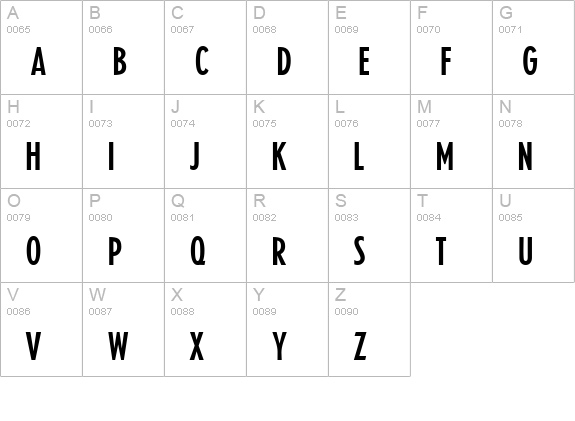
E821-Sans-Regular Font Details
E821-Sans-Regular is the standard, neutral variant in the E821 typeface family \xE2\x80\x94 well suited to general body text, paragraphs, and standard typographic work.
E821-Sans-Regular font is a versatile and modern typeface that will elevate any design project. With its clean lines and balanced proportions, this font exudes professionalism and readability. Whether you are creating a sleek logo, designing a stylish flyer, or crafting a sophisticated website, E821-Sans-Regular is the perfect choice. What makes this font even more appealing is the fact that it is completely free to download. You can easily access this font at FontsMarket.com and start using it in your projects right away. With its wide range of weights and styles, E821-Sans-Regular offers endless possibilities for customization and creativity. Add a touch of elegance and sophistication to your designs with this fantastic font.